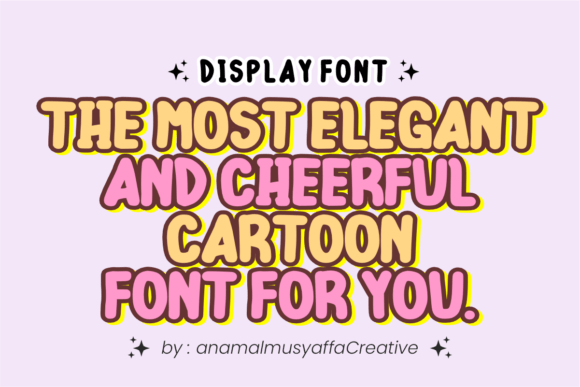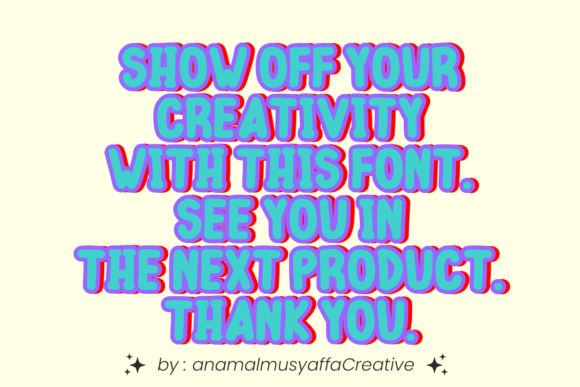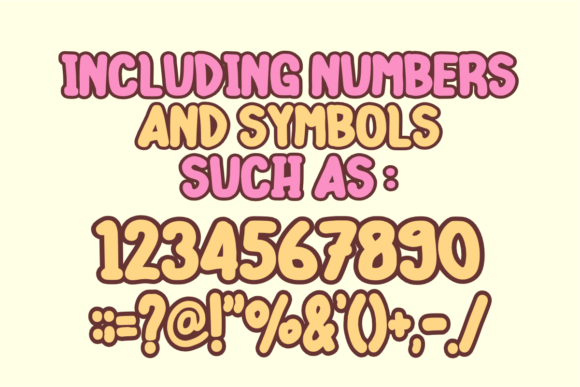
Cute Cowboy Font: Saddle Up Your Designs with a Delightful Western Twist!
Howdy, designers and crafters! Are you ready to add a dash of bold cuteness and spirited fun to your creative projects? Look no further than the Cute Cowboy Display Font! This charming typeface is perfect for those who want to infuse their designs with a playful, Western-inspired flair. In this article, we’ll dive into the wonderful world of Cute Cowboy and explore its unique features, uses, and benefits.
A Unique Blend of Style and Charm
The Cute Cowboy font is a one-of-a-kind display typeface that seamlessly merges a fun, chunky bubble style with a whimsical, Western-inspired twist. Its bold, rounded letterforms are thick, soft, and inviting, making them perfect for vibrant, layered color schemes and high-impact headlines. Whether you’re designing children’s apparel, party invitations, or social media graphics, Cute Cowboy is sure to add a touch of magic to your creations.
Tough and Adorable: The Perfect Balance
One of the standout features of the Cute Cowboy font is its ability to balance toughness and adorability. The bold, chunky letterforms give off a strong, rugged vibe, while the rounded edges and soft curves add a touch of sweetness. This perfect balance makes Cute Cowboy an excellent choice for designers who want to create eye-catching, memorable designs that appeal to a wide range of audiences.
The Cute Cowboy font is incredibly versatile, making it suitable for a wide range of creative projects. Here are just a few ideas to get you started:
- Children’s apparel: Design adorable t-shirts, onesies, and hoodies that kids will love.
- Playful party invitations: Create eye-catching invites for birthday parties, cowboy-themed events, and more.
- Themed event signage: Make a statement with bold, Western-inspired signs for events, sales, and promotions.
- Fun social media graphics: Add a touch of whimsy to your social media posts, stories, and ads.
- Western-themed designs: Create authentic, rustic designs for clients looking for a unique, cowboy-inspired aesthetic.
Why Choose Cute Cowboy Font?
So, what sets Cute Cowboy apart from other fonts on the market? Here are just a few reasons why designers and crafters love this delightful typeface:
- Unique aesthetic: Cute Cowboy offers a refreshing blend of bold, chunky letterforms and whimsical, Western-inspired flair.
- Ease of use: The font is incredibly easy to read, even at smaller sizes, making it perfect for a wide range of applications.
- High-impact headlines: The bold, rounded letterforms make Cute Cowboy perfect for creating attention-grabbing headlines and titles.
- Customization options: The font can be easily customized to fit your brand’s unique style and aesthetic.
Tips and Tricks for Using Cute Cowboy Font
To get the most out of the Cute Cowboy font, here are a few tips and tricks to keep in mind:
- Experiment with colors: Cute Cowboy looks amazing with bright, bold colors. Don’t be afraid to try out different color schemes and combinations.
- Play with textures: Add an extra layer of depth to your designs by incorporating textures and patterns.
- Mix and match: Combine Cute Cowboy with other fonts and design elements to create unique, eye-catching compositions.
In conclusion, the Cute Cowboy font is a must-have for designers and crafters looking to add a dose of bold cuteness and spirited fun to their creative projects. With its unique blend of style and charm, endless creative possibilities, and ease of use, Cute Cowboy is the perfect choice for anyone looking to saddle up their designs with a delightful Western twist. So why wait? Get ready to yeehaw your way to design success with the Cute Cowboy font!